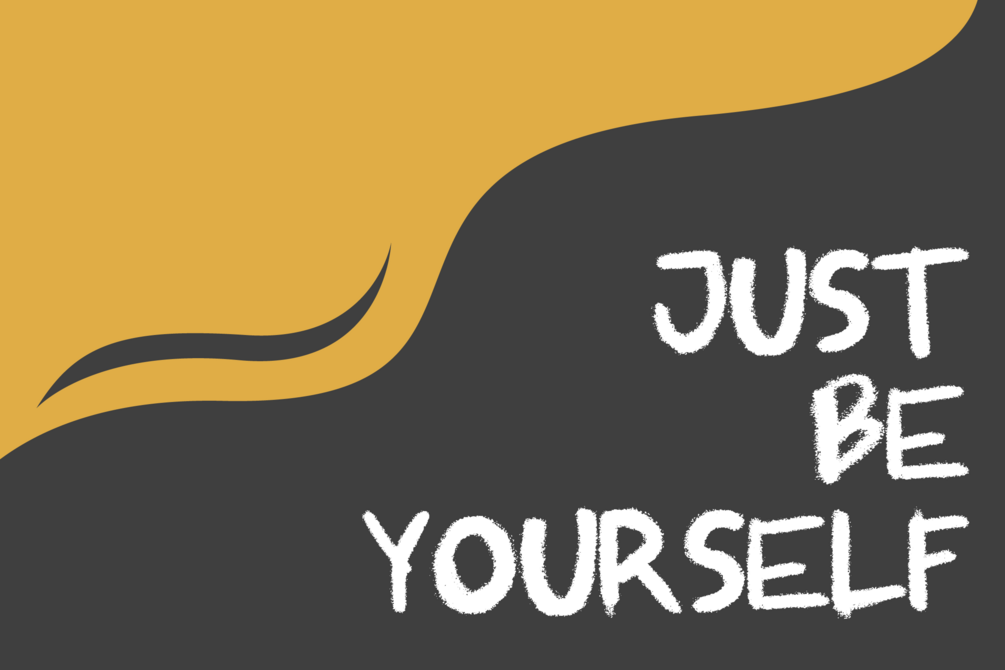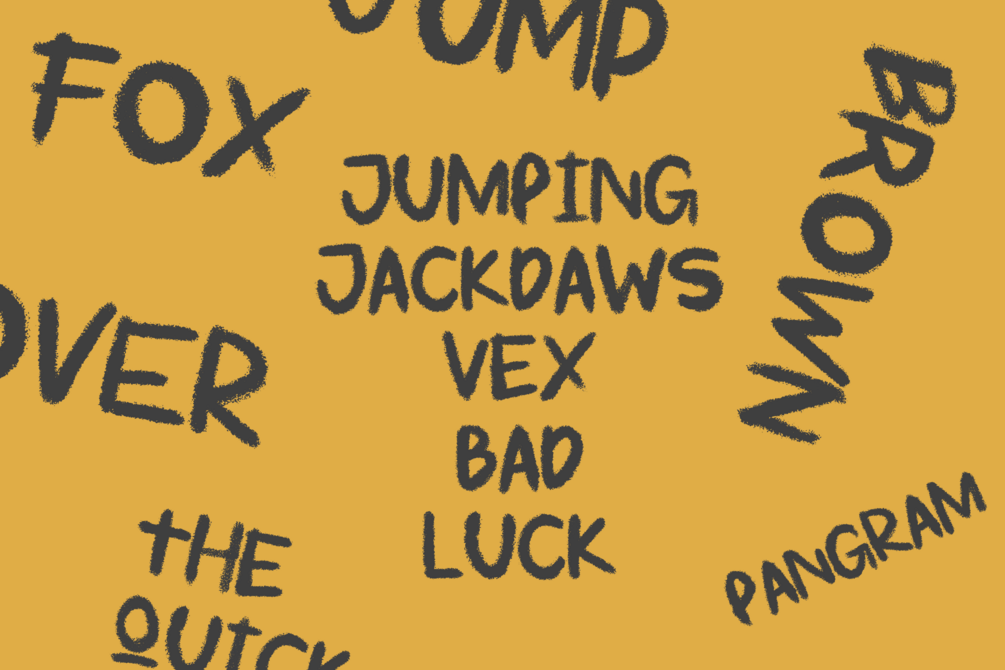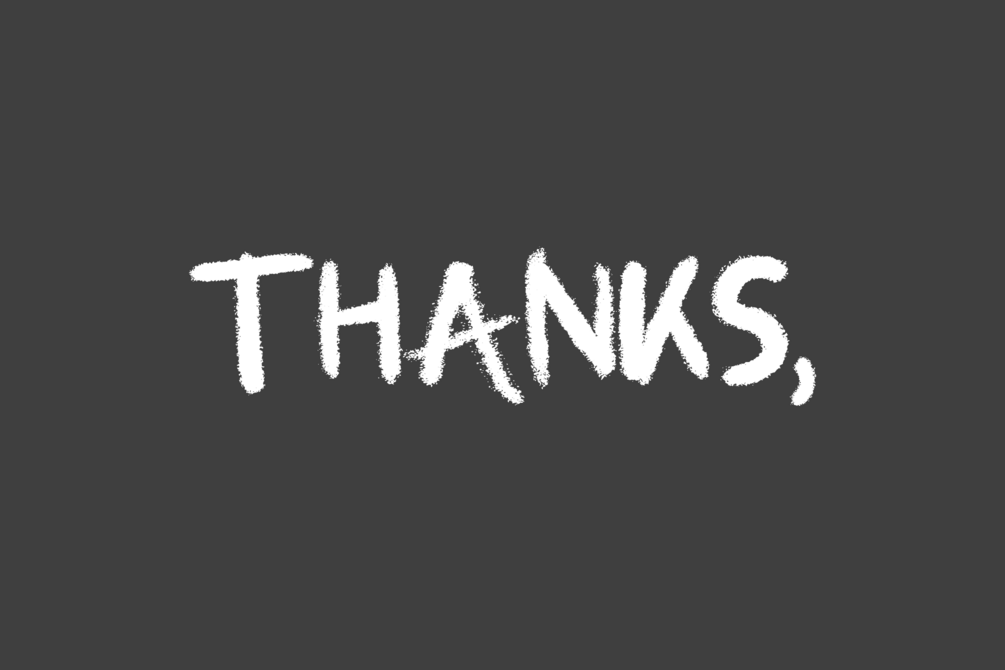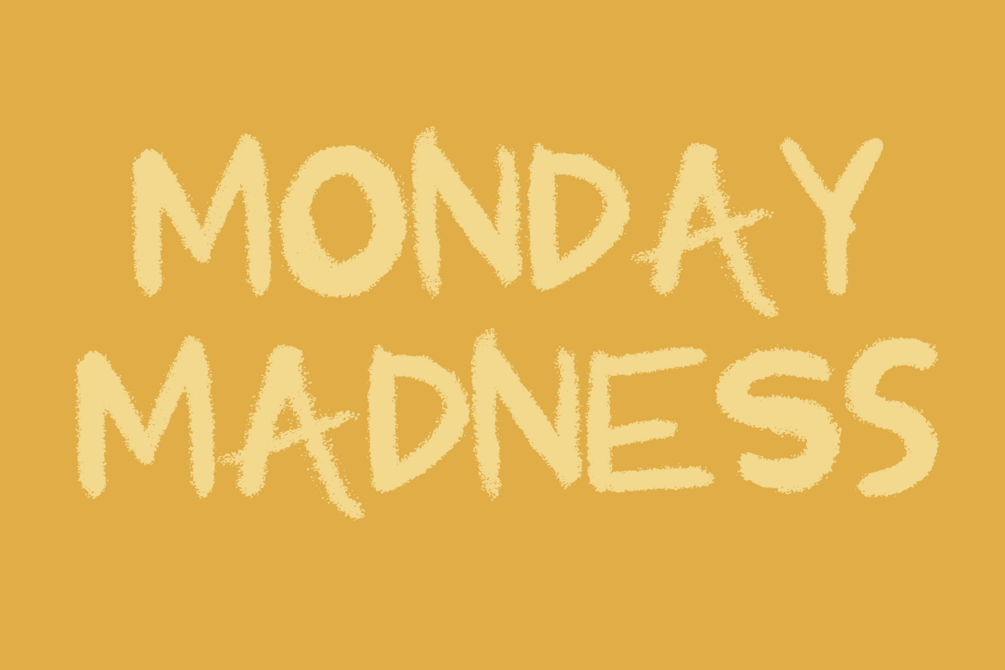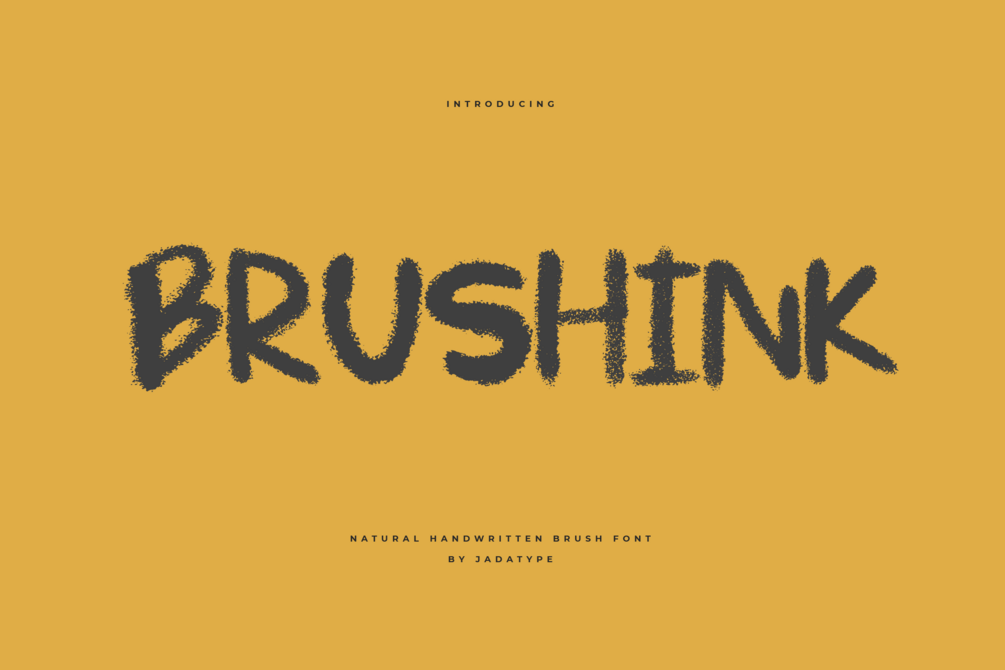
Brushink Font
Brushink is an all caps display font that comes with a Handwritting Brush style. suitable for tshirt, branding, social media, and so on. contains standard English letters, numbers, punctuation, and several accents that support multilingualism.